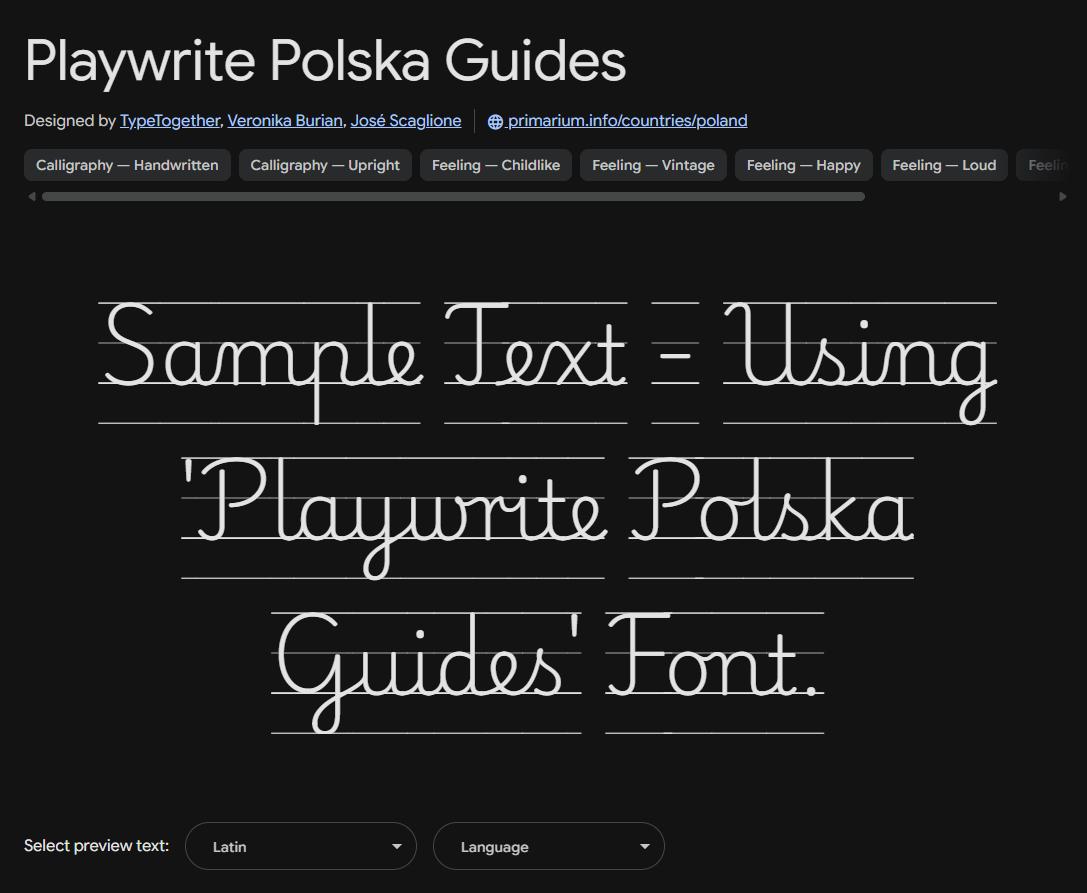
The Playwrite Polska Guides typeface, a specialized single-style font engineered by TypeTogether's Veronika Burian and José Scaglione, functions as a sophisticated pedagogical instrument that merges digital typography with foundational motor skill development. By integrating structural scaffolding-specifically baseline, x-height, and ascender guides-directly into the font's vertical metrics, the design facilitates the precise execution of Polish-specific diacritics and character ligatures. This technical synthesis of skeletal cursive forms and built-in ruling lines leverages advanced OpenType features to maintain rhythmic consistency across the glyph set, providing a unique typographic framework that optimizes legibility and stroke accuracy for early-stage learners within a digitized educational environment.
The Playwrite Polska Guides font family functions as a specialized pedagogical tool that bridges the gap between digital typography and traditional Polish school script, characterized by its distinctive upright calligraphy and handwritten architecture. This typeface utilizes a unique skeletal structure to evoke a nostalgic, vintage aesthetic while maintaining a playful and happy disposition, specifically engineered to foster a childlike sense of wonder in educational environments. By integrating technical guide rules directly into the glyph composition, the font achieves a rugged texture and a loud visual presence that prioritizes legibility and spatial awareness. The resulting aesthetic balances the rhythmic precision of upright calligraphy with a spirited, humanistic touch, offering a semantically rich experience that transforms standard literacy exercises into a dynamic, playful engagement with letterforms.
For high-stakes corporate documentation or complex data visualization, Playwrite Polska Guides by TypeTogether is fundamentally unsuitable due to its specialized pedagogical morphology designed for primary cursive acquisition. While Veronika Burian and José Scaglione engineered this typeface as a structural scaffold for Polish handwriting education, the integrated ruling lines-essential for kinesthetic learning-introduce excessive horizontal interference and visual noise in professional typesetting. In contexts such as legal contracts, medical labeling, or financial reporting, these persistent guidelines disrupt the vertical rhythm and compromise rapid legibility by obscuring the distinction between x-height and ascender terminals. Furthermore, the inherent calligraphic stroke weight lacks the neutral clarity required for Web Content Accessibility Guidelines (WCAG) compliance in dense information environments, making it a high-risk choice for enterprise-level interfaces where semantic precision and clean typographic hierarchy are non-negotiable requirements.
Playwrite Polska Guides are primarily designed for educational materials and handwriting practice sheets to help learners master specific letter formations. The typeface's variable weight axis allows for precise stroke modulation, making it a benchmark for pedagogical legibility in primary school typography.
The integrated guidelines act as visual anchors that provide consistent baselines and x-height boundaries directly within the glyph set. By leveraging OpenType features, the font maintains structural vertical metrics that prevent baseline drift during complex kerning adjustments.
In standard single-layer usage, the guidelines share the same color properties and CSS color attributes as the letterforms themselves. To achieve chromatic separation, designers must utilize the layering capabilities of the font family by superimposing the Guides version over the base weight using precise Z-index positioning and character registration.
This font is specifically engineered to include all nine Polish characters, such as ą, ć, and ł, to ensure full linguistic compliance for native learners. The character map adheres to the Latin-2 encoding standard, providing correct placement of ogoneks and kreskas which are vital for semantic clarity in Slavic orthography.
Aligning guidelines across multiple rows requires setting a fixed leading value that matches the total height of the guide boundaries exactly. Utilizing a baseline grid in professional layout software ensures that the ascender and descender lines of the font remain mathematically synchronized across the entire document canvas.
The font's vector-based outlines ensure that the guidelines and letters remain crisp and clear even when printed at large scales for classroom posters. High-definition output is maintained through PostScript-based Bezier curves, which prevent pixelation and ensure smooth stroke transitions at resolutions exceeding 1200 DPI.
Cursive connections in the font are managed through contextual alternates that automatically join letters based on their specific sequence. The OpenType "init," "medi," and "fina" features programmatically determine the optimal entry and exit strokes to mimic authentic continuous-line handwriting.
For optimal visibility of the internal guidelines, a minimum size of 24 points is generally recommended for most display screens and printed pages. At smaller scales, the thin horizontal rules may suffer from aliasing, but at 36pt and above, the stroke contrast remains stable due to the font's high-fidelity vector rendering.
Playwrite Polska Guides is designed to be fully compatible and stackable with other weights and styles within the broader Playwrite collection. This modular architecture allows for the creation of multi-color educational exercises by utilizing identical glyph widths across different styles to maintain perfect character registration.
In digital layouts, the font provides a clean and structured appearance that facilitates on-screen reading and tracing exercises for tablets. The integration of WOFF2 compression formats ensures that the complex guide geometry renders efficiently on web browsers without compromising the layout's Cumulative Layout Shift (CLS) metrics.